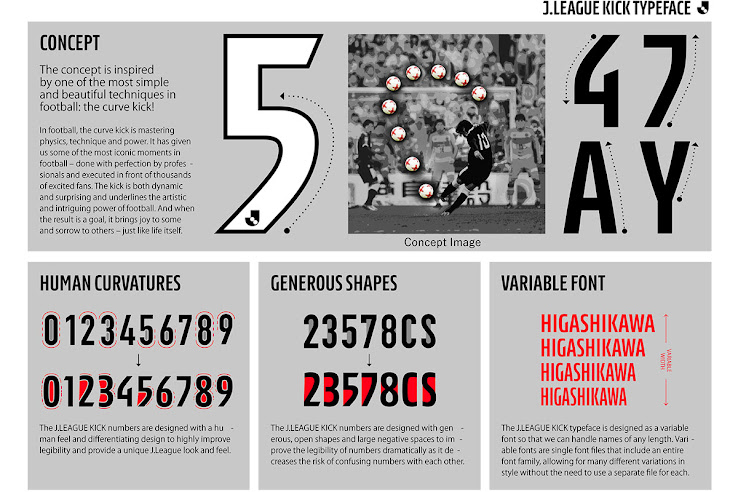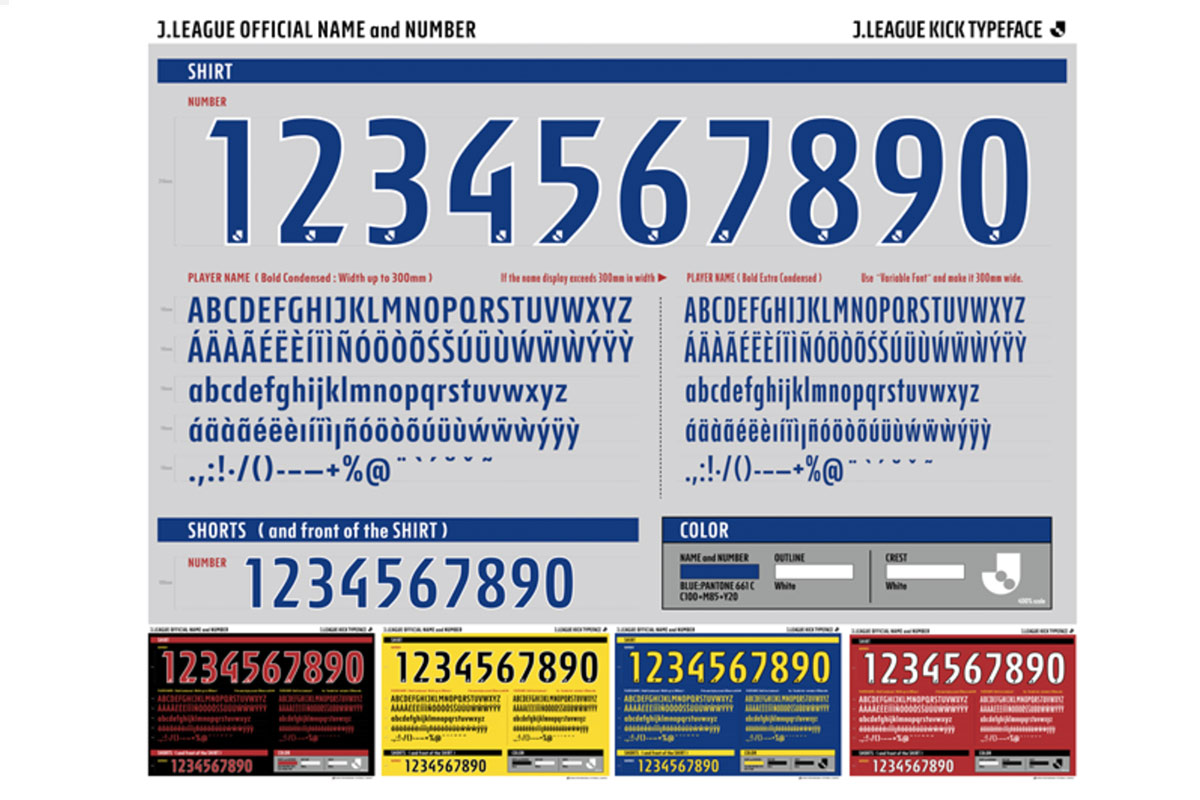
First-Ever J League Kit Typeface Launched - Inspired By Curve Kicks
The Japanese J League will have a streamlined jersey typeface from the 2021 season, it has been announced this week. Introducing the "J.LEAGUE KICK" typeface.
J.LEAGUE KICK Typeface - New J League 2021 Kit Typeface
The new 2021 J League typeface takes inspiration from the curve kick - "The curve kick is a symbol of how football can bring people together".
The typeface (J.LEAGUE KICK) was designed by Kontrapunkt, a leading Scandinavian design agency, with a universal design and visibility.
The reason for the Japanese J League to have the same names and numbers for all team's kits is that "will give better visibility and improve the quality of watching J.LEAGUE matches".
J.LEAGUE Chairman Mitsuru Murai said: "The introduction of the "J.LEAGUE OFFICIAL NAME and NUMBER" aims to help everyone easily identify the players, while there is the growing trend of watching matches on smartphones and tablets along with watching at the stadiums. In addition, I hope it will lead to pay more attention and give interest to the players."
2021 J League Typeface - What You Need To Know:
・For all kits from the 2021 season - (J1 League, J2 League, J3 League, League Cup, J1/J2 Play-Offs, Super Cup)
・Typeface name:J.LEAGUE KICK
・Color used:White, Blue, Red, Black, Yellow